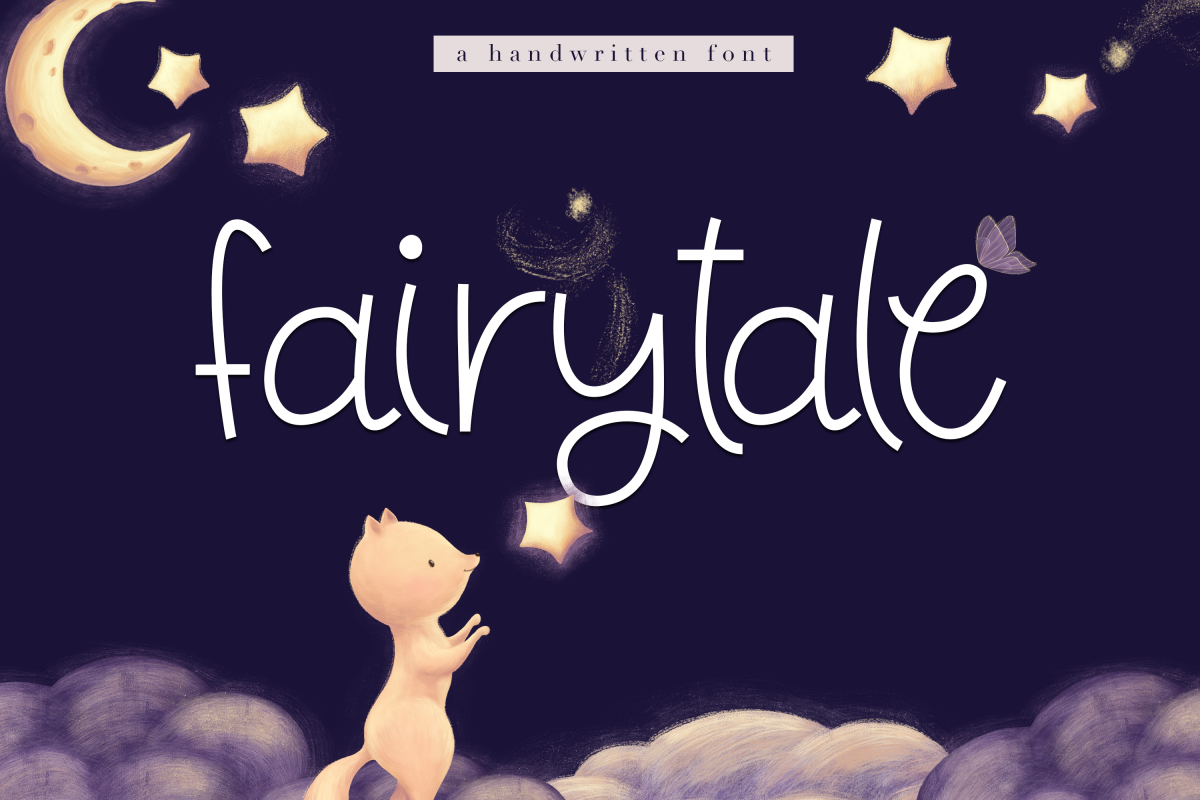
Fairytale - Romantic Script Font
Fairytale Font was made to be a good and beautiful font, Really befit to all your design project,like invitation card, product logo, food brand logo and much more.
Fairytale font also supported with extra character that include : standart ligatures, stylistic set 01 - stylistic set 02.
that will help you get beautiful style with your own creation.